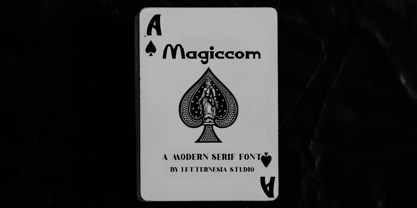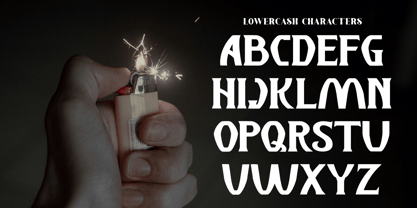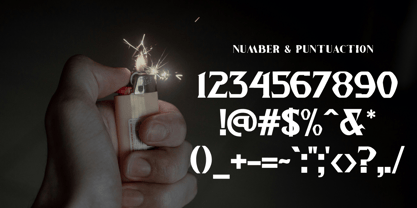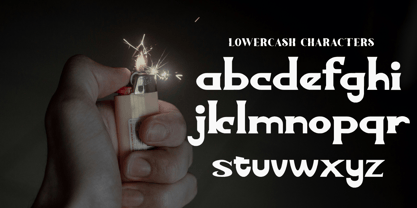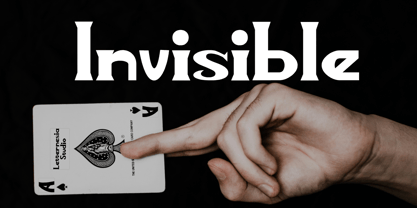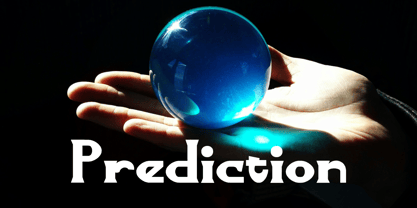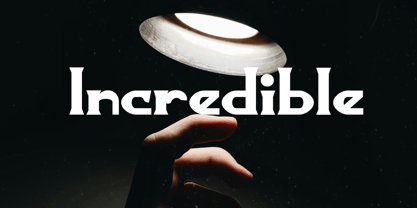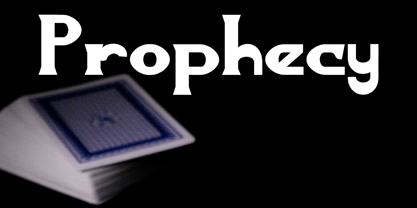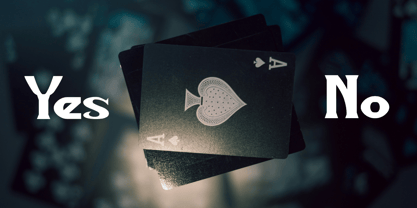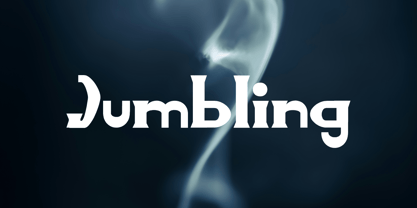
Magiccom
by Letternesia studio
The Magiccom Font Family was designed by Ta Siyo and published by Letternesia studio. Magiccom contains 2 styles and family package options. More about this family
Magiccom is a playful and modern display font that brings a spark of creativity to your designs. With bold strokes and smooth curves, it captures a magical charm that feels both fun and stylish. Perfect for branding, posters, social media graphics, and product packaging, Magiccom makes every project stand out with a unique personality. Whether you’re creating headlines or eye-catching logos, this font is designed to add a touch of wonder and bold energy.
Designers: Ta Siyo
Foundry: Letternesia studio